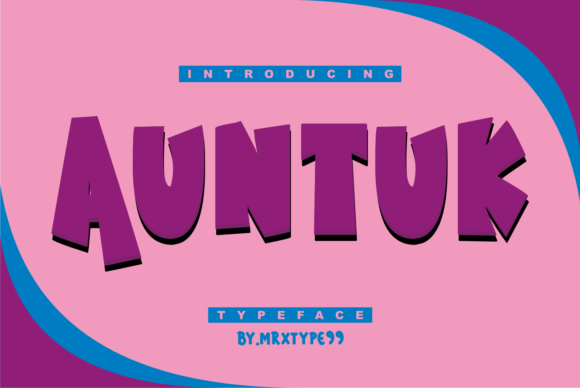
Unleash the Power of Expression with Auntuk Font: Your Path to Heartfelt Apologies and Creative Triumphs!
There's nothing ordinary about Auntuk Font. Its bold, thick strokes command attention, leaving a mark on hearts and minds alike. Whether you're crafting an apology letter that truly conveys your remorse or designing captivating posters, Auntuk is your secret weapon. The simplicity and strength of this display font are an artist's dream, transforming ordinary designs into captivating masterpieces.
Auntuk Font: A Journey of Meaningful Expression
In the world of fonts, Auntuk stands tall, a testament to the power of genuine expression. Its letters, bold and unyielding, mirror the depth of emotions you aim to convey. With Auntuk, your apology letters become more than words on a page; they become heartfelt confessions that mend broken bonds and restore harmony. Its distinctive style adds sincerity to your words, allowing you to convey the weight of your emotions with clarity and strength.
Beyond apologies, Auntuk's versatility shines through. Create poster designs that command attention, with every letter a striking visual element. Unleash your creativity and craft stunning social media posts that leave a lasting impression. Auntuk's thick strokes and unique character bring a touch of individuality to any project, making your designs stand out from the crowd. Its simple yet powerful presence ensures your message is loud and clear, leaving an unforgettable impact on your audience.
Auntuk Font: A Symphony of Style and Substance
With Auntuk Font at your fingertips, the possibilities are endless. Design eye-catching logos that capture the essence of your brand, leaving a lasting impression on potential customers. Elevate your website designs with Auntuk's bold and confident style, creating an unforgettable user experience. Its versatility extends to t-shirt designs and book covers, transforming them into canvases for your creative expression.
Auntuk Font isn't just another font; it's an experience. A tool that empowers you to express your emotions with authenticity and creativity. Its bold strokes and unique style make it the perfect choice for those seeking a font that leaves a lasting impression. Embrace the power of Auntuk Font and unlock a world of creative possibilities.